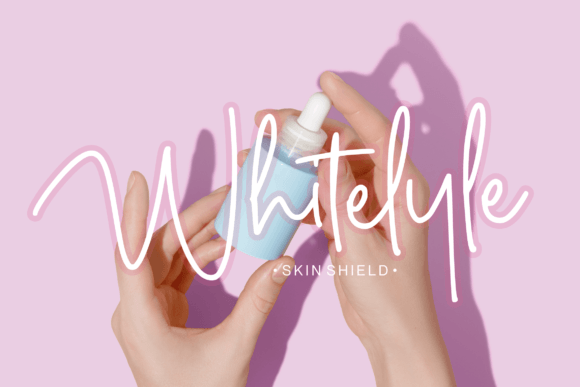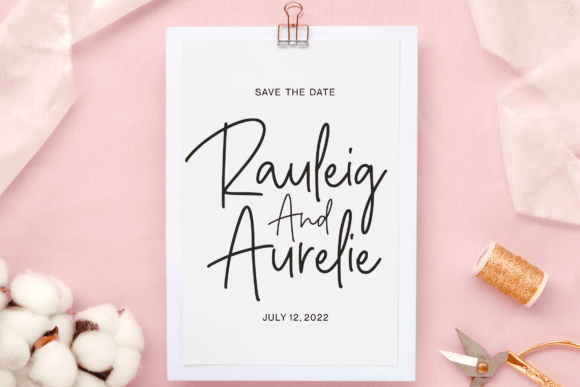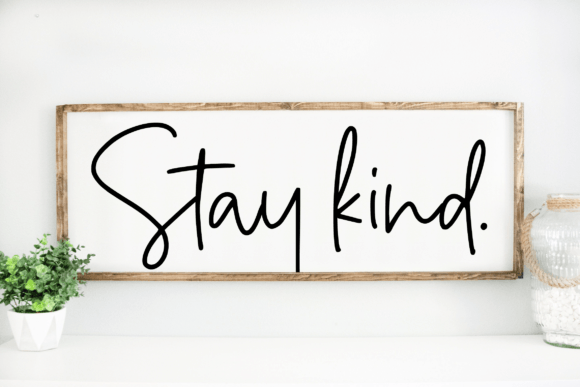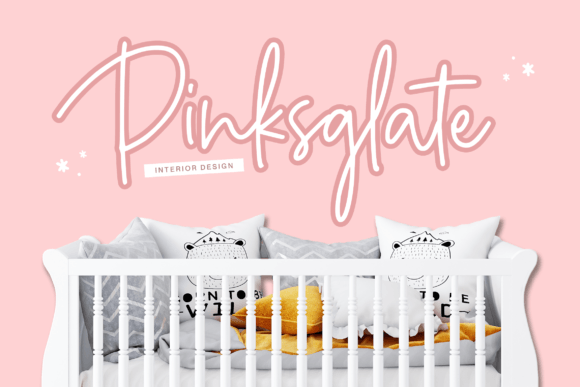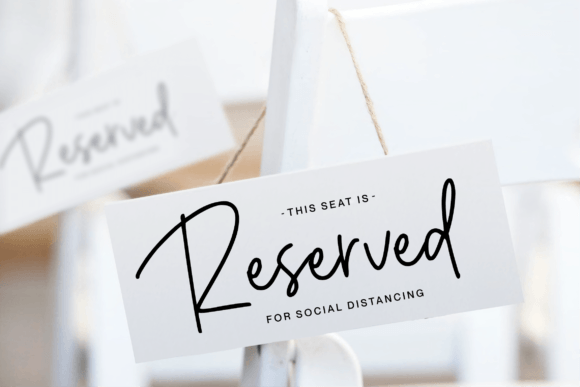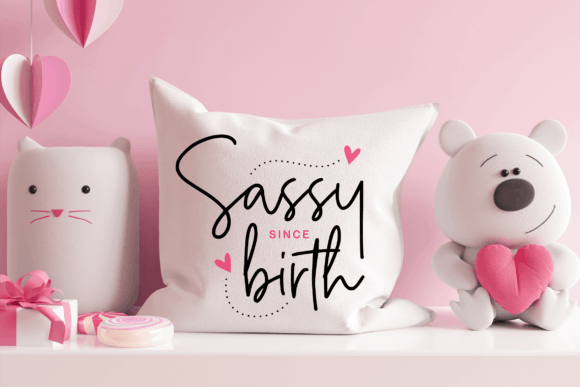
Introduction to Rhapsoline Font
Rhapsoline is a Monoline Script Font Rhapsoline is perfect for product packaging, branding project, magazines, social media, weddings, or just used to express words above the background.